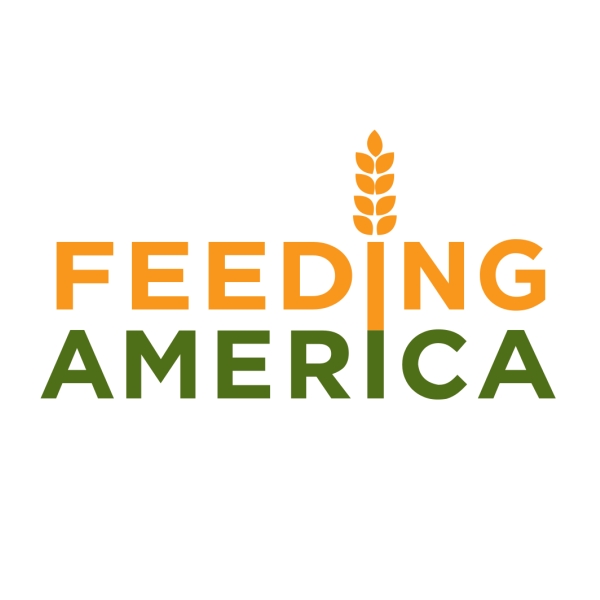
Feeding America Font
Fonts in UseFeeding America is a non-profit organization that aims to combat hunger in the United States by providing food to people in need. They work with a network of food banks and partner agencies to distribute meals to millions of Americans every year.
It is likely that the logo of the organization uses the Gotham Bold font, which belongs to a popular geometric sans serif typeface family created by Tobia Frere-Jones in 2000. Further information regarding this font can be accessed here.